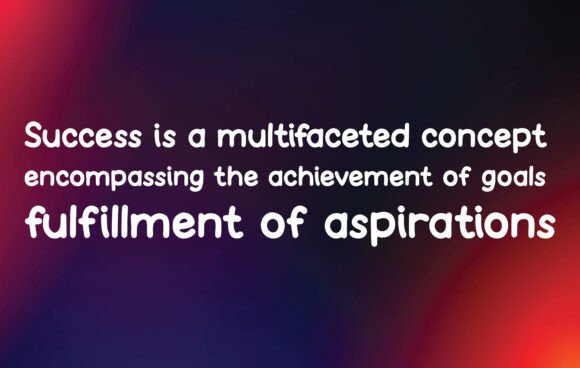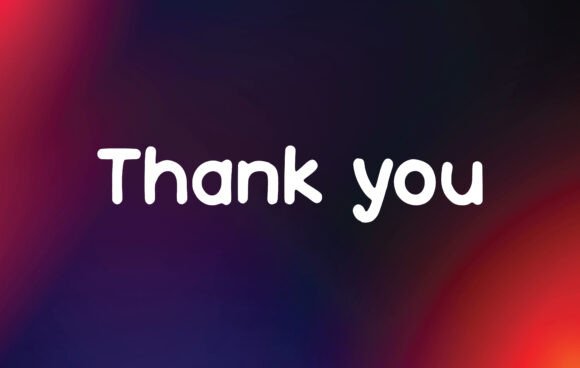
The Quest for the Perfect Font: Discovering Dianthus
I still remember the frustration of working on a project, hours spent crafting the perfect design, only to be held back by one thing: the font. It was a client request for a logo that needed to evoke a sense of elegance and playfulness. I scoured the internet, tried font after font, but nothing seemed quite right. That was until I stumbled upon Dianthus, a lovely and beautiful handwritten font that has since become a staple in my design toolkit.
An Honest Review of Dianthus
So, what makes Dianthus so special? Let’s dive into the good stuff and, of course, a few quirks I’ve noticed.
What I Love About Dianthus ✨
- ✅ Elegant yet Playful: Dianthus strikes the perfect balance between elegance and playfulness, making it versatile for various design projects.
- ✅ Highly Readable: Even at smaller sizes, Dianthus remains clear and easy to read, which is a huge plus for body text or quotes.
- ✅ OpenType Features: It comes with a range of OpenType features, including stylistic alternates and glyphs, allowing for a high degree of customization.
- ✅ Unique Character: Each letter has a unique character, adding a personal touch to any design.
While Dianthus is a fantastic font, there are a couple of things to keep in mind:
- ⚠️ Kerning Issues: Occasionally, you might need to manually adjust kerning, especially in larger text or headings.
- ⚠️ Limited Use in Very Formal Contexts: While versatile, Dianthus might not be the best fit for very formal or traditional projects due to its playful nature.
The Story Behind Dianthus
Dianthus was designed with the intention of capturing the elegance of handwritten scripts while maintaining readability. Inspired by the delicate petals of the Dianthus flower, the font aims to bring a touch of nature’s beauty to your designs. Whether you’re a professional designer or a hobbyist, Dianthus offers the versatility to elevate your creative projects.
Q: Is Dianthus suitable for body text?
A: Absolutely! Dianthus is not only great for titles and headings but also highly readable for body text, making it a versatile choice for various projects.